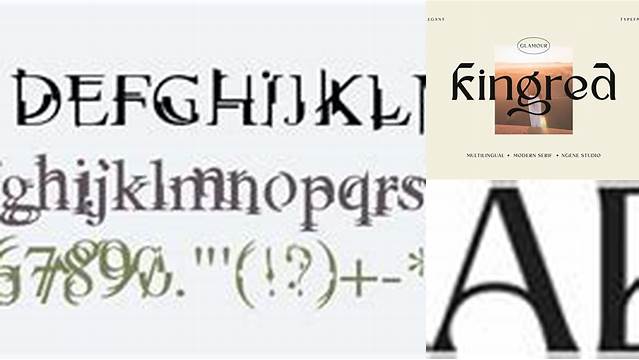
Kingred Serif: Free Font Download Guide
What is Kingred Serif Normal Font?
The Kingred Serif Normal Font is a typeface known for its classic and elegant design. Serif fonts, characterized by the small decorative strokes (serifs) at the end of each character, often convey a sense of tradition, authority, and readability. Kingred Serif, in particular, strikes a balance between these traditional qualities and a modern aesthetic, making it versatile for a wide range of applications. It's designed with attention to detail, ensuring that each letterform is both visually appealing and highly legible. This makes it suitable for body text as well as headlines.
Key Characteristics of Kingred Serif
- Classic Design: Kingred Serif embodies the timeless appeal of serif fonts, making it a reliable choice for projects that require a touch of elegance and sophistication.
- High Readability: The font is designed to be easily readable, even in smaller sizes, which is crucial for body text in books, articles, and websites. The letter spacing and overall design contribute to a comfortable reading experience.
- Versatility: Kingred Serif is versatile enough to be used in a variety of design contexts, from print to digital. It works well in both headlines and body text, making it a go-to font for many designers.
- Modern Aesthetic: While it retains the classic features of a serif font, Kingred Serif also incorporates modern design elements that make it feel fresh and contemporary. This blend of old and new ensures that it doesn't look outdated.
Why Choose Kingred Serif?
Choosing the right font can significantly impact the overall look and feel of your design. Kingred Serif offers several advantages that make it a strong contender for your projects.
- Professional Appearance: Using Kingred Serif can instantly elevate the professionalism of your designs. Whether you're creating a business report, a marketing brochure, or a website, this font adds a touch of class and sophistication.
- Enhanced Readability: Readability is paramount, especially when dealing with large blocks of text. Kingred Serif ensures that your message is easily understood, reducing eye strain and improving the overall user experience.
- Versatile Application: From print to digital, Kingred Serif adapts seamlessly to different mediums. This versatility makes it a practical choice for designers working on a variety of projects.
In summary, the Kingred Serif Normal Font is a well-designed typeface that combines classic elegance with modern readability. Its versatility and professional appearance make it an excellent choice for a wide range of design projects. Now, let's explore where you can download it for free.